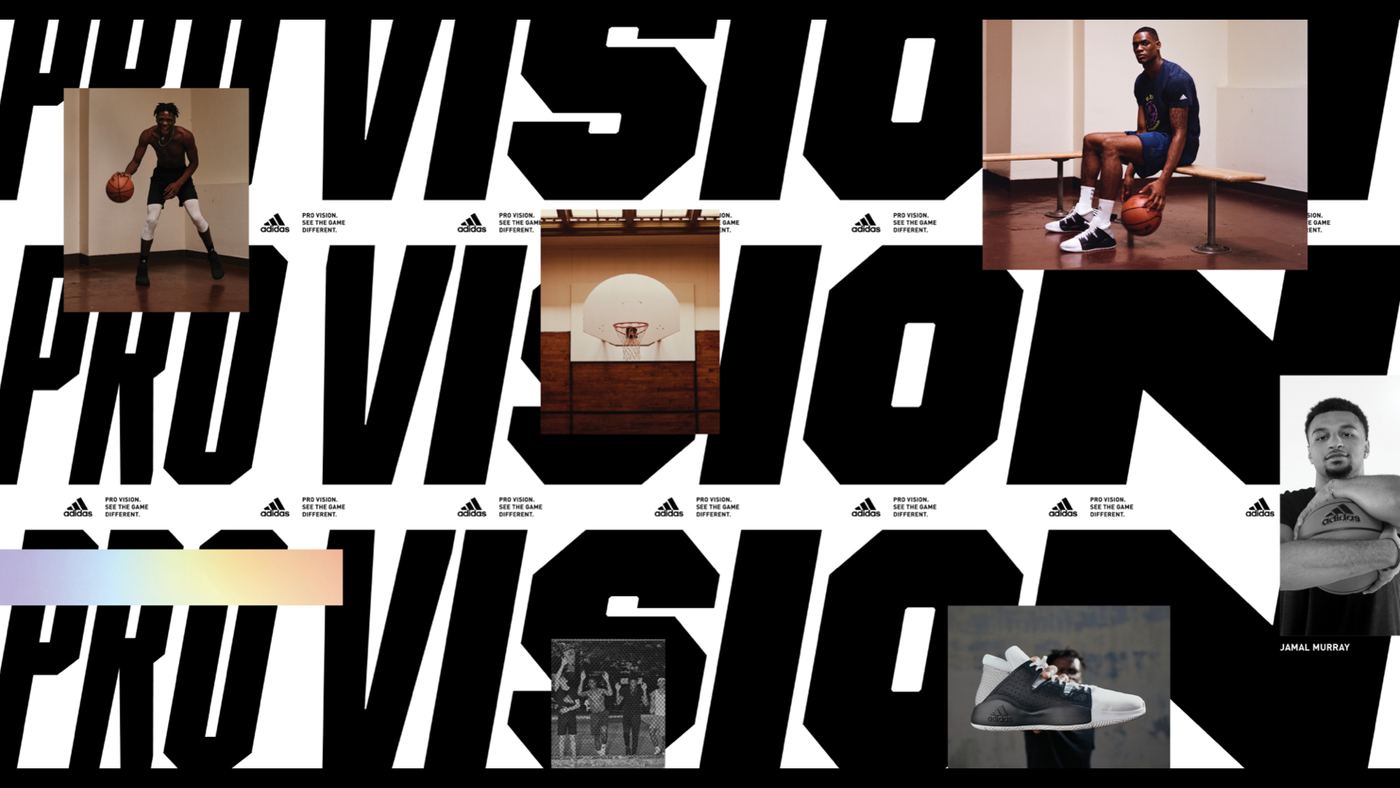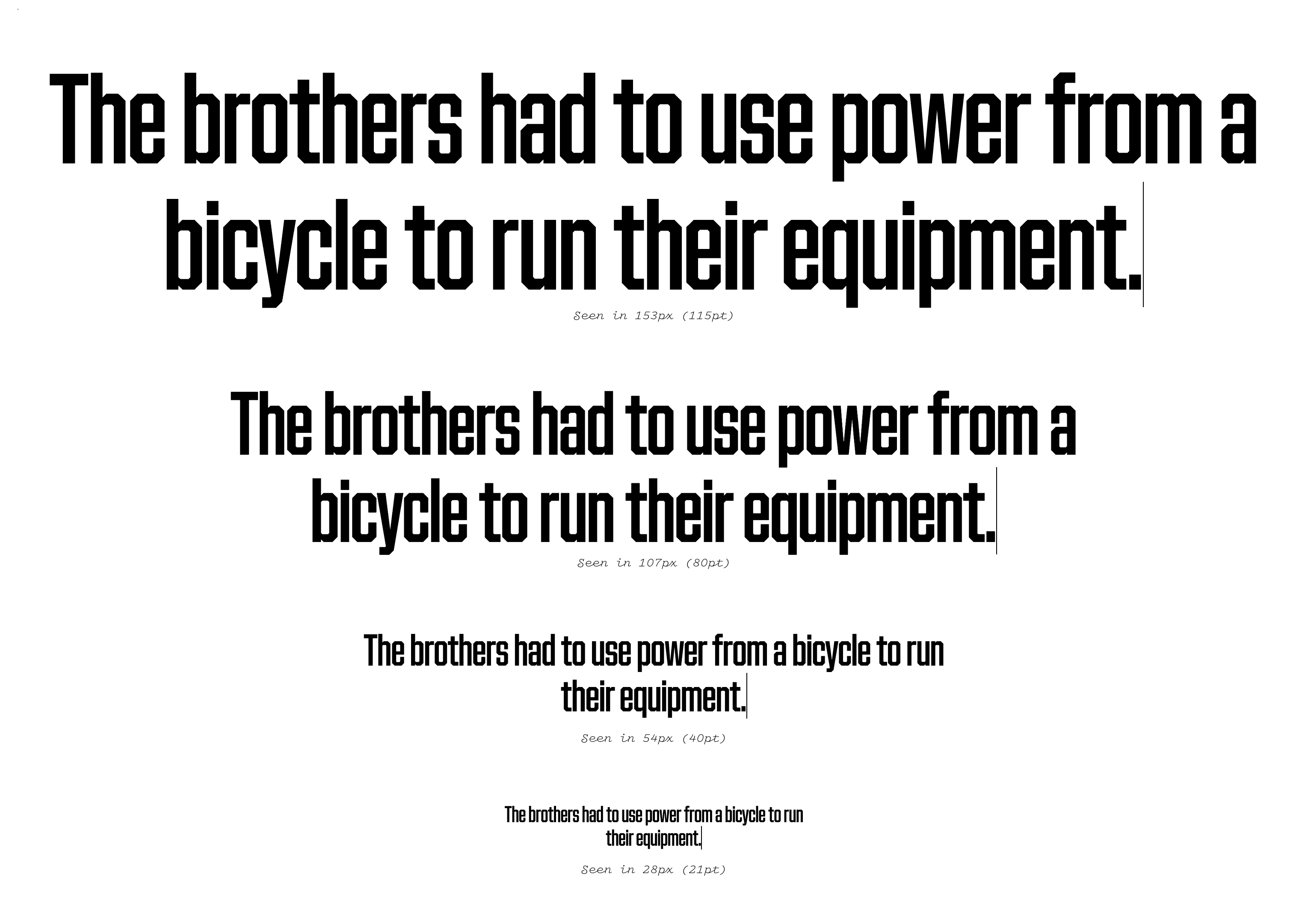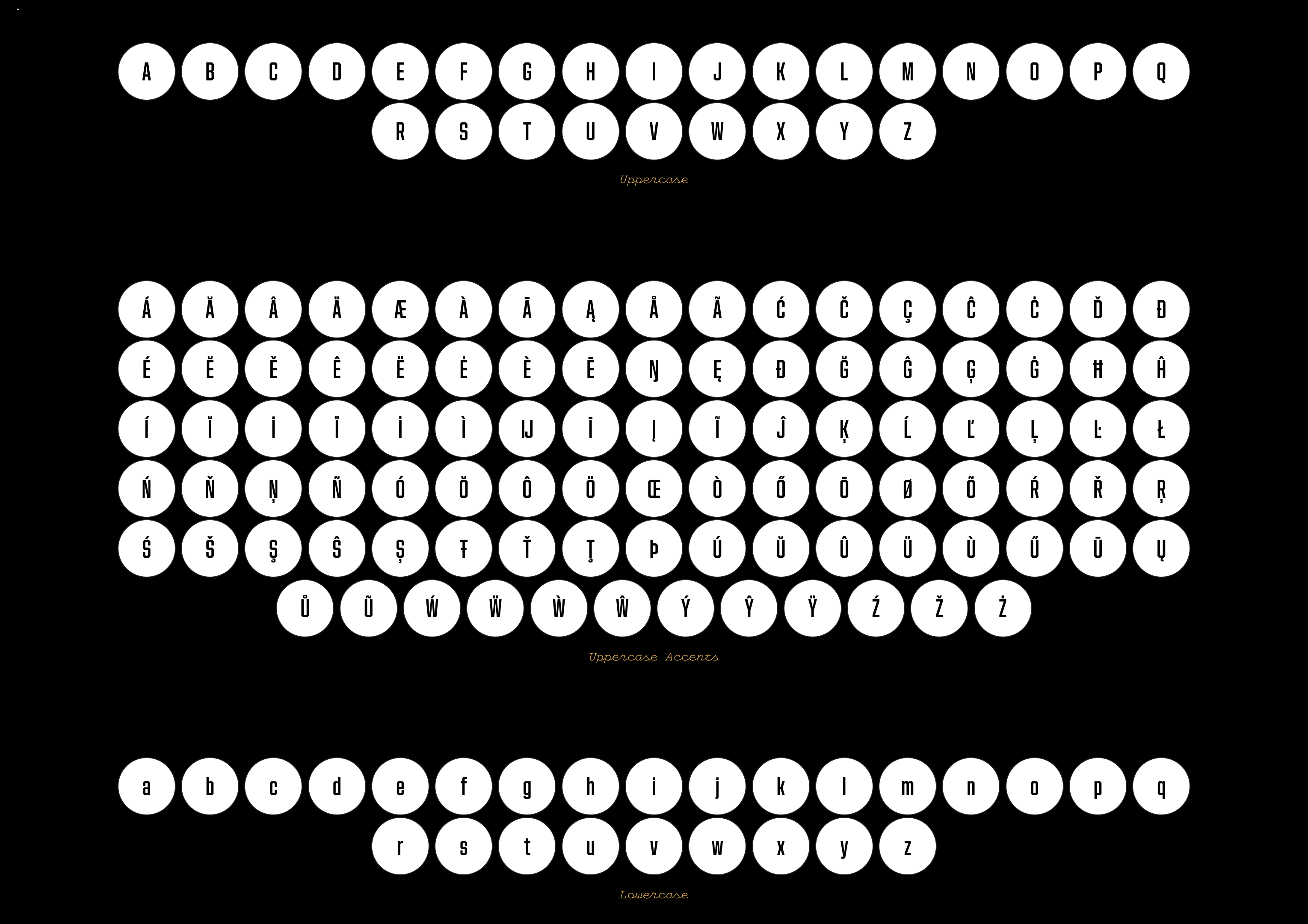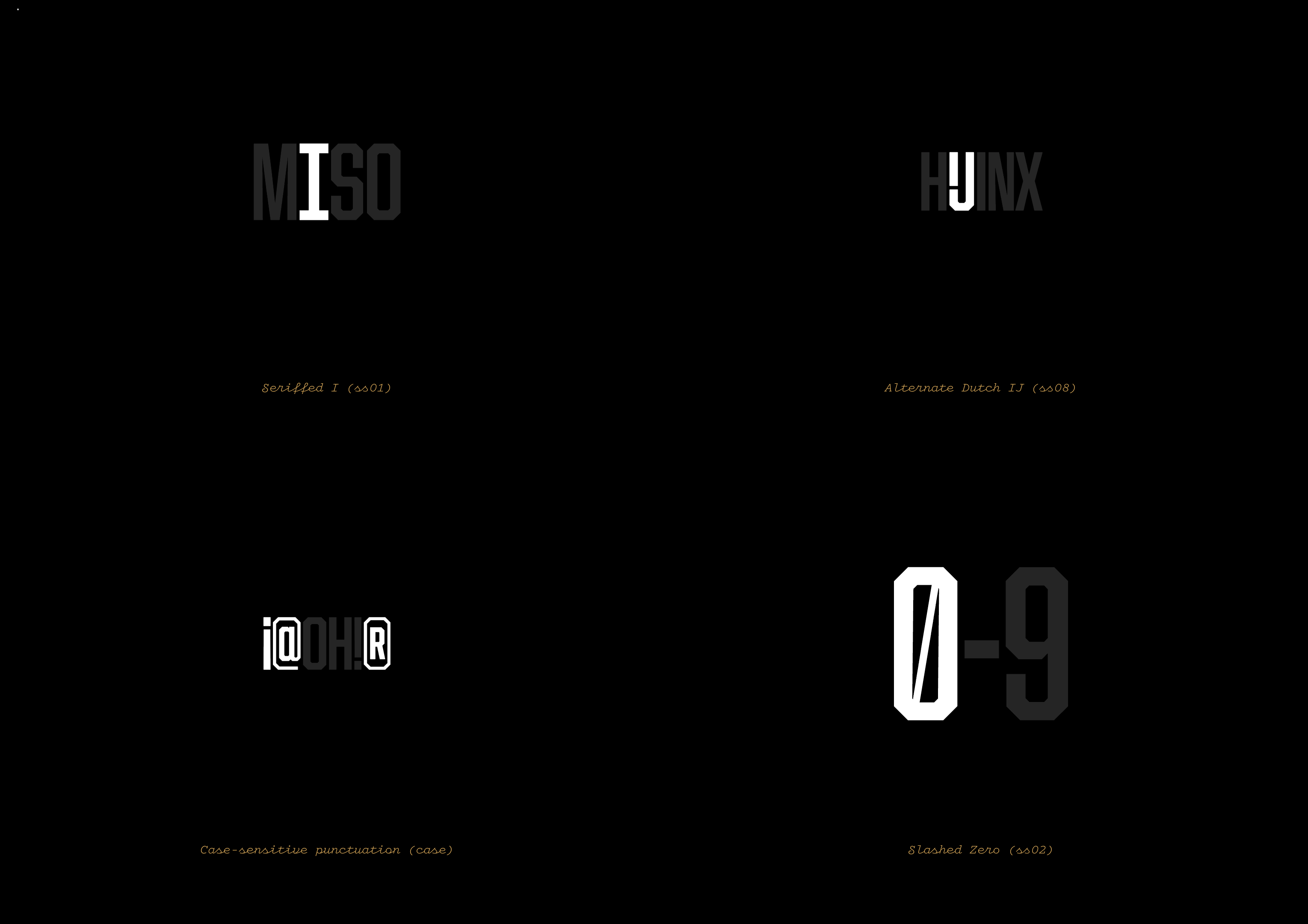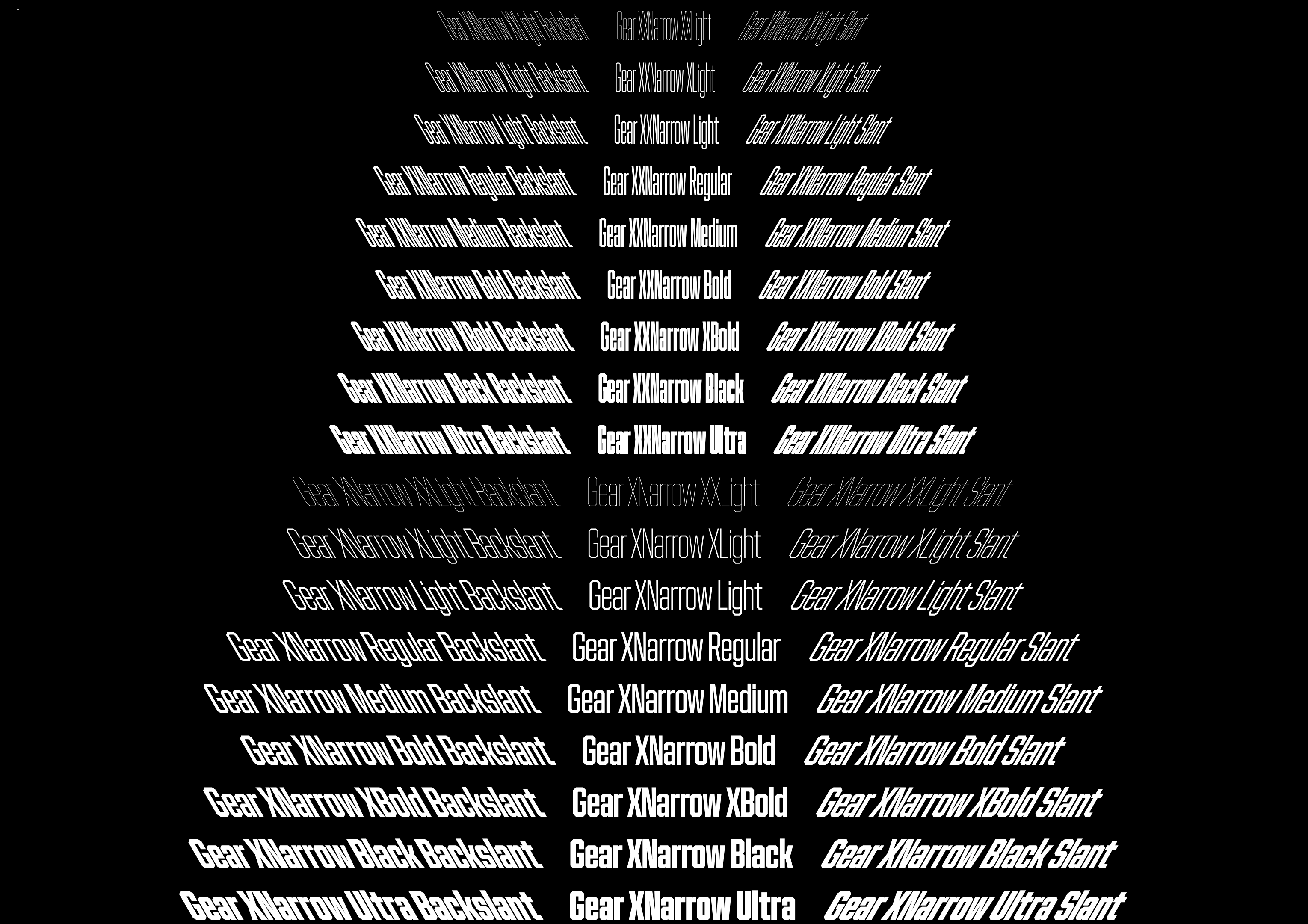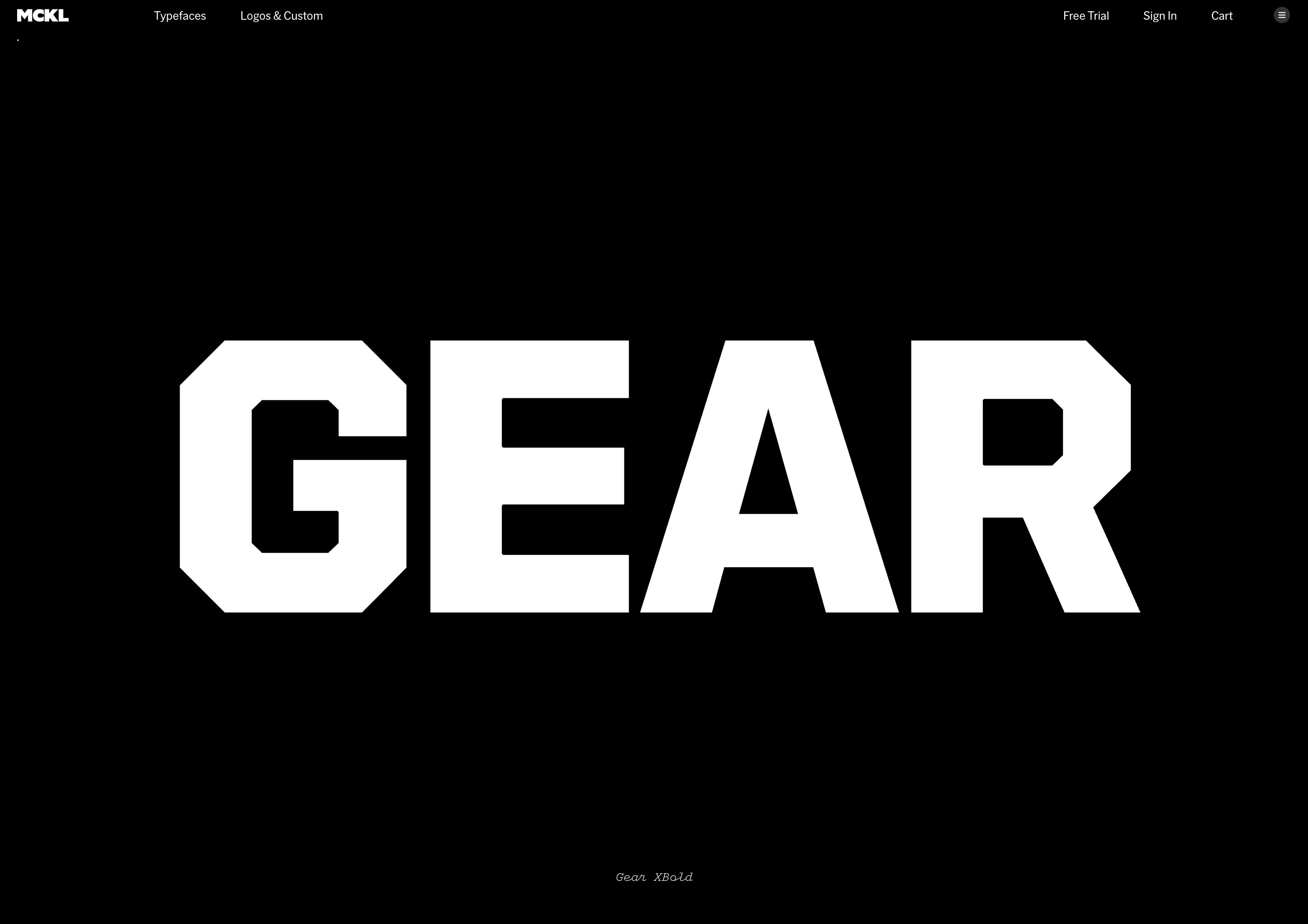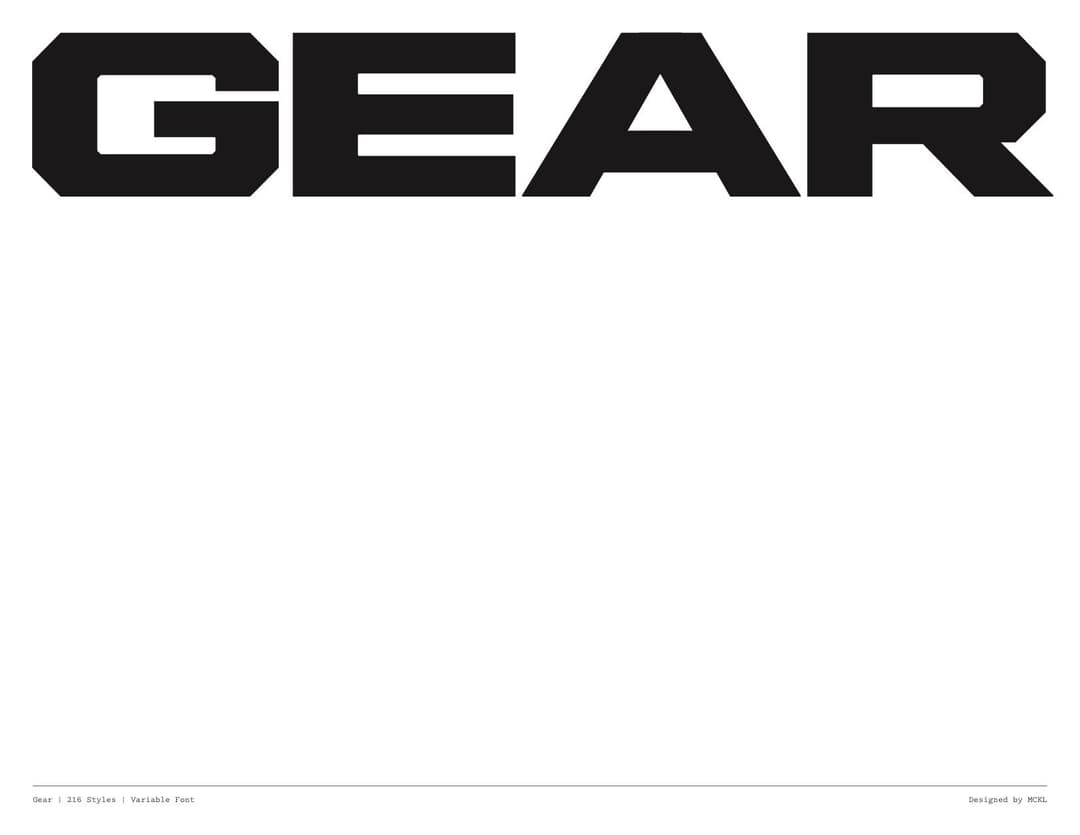
Gear
• 216 styles 8 widths, 9 weights each Backslant, Roman, and Slant
• Designed by Jeremy Mickel Published in 2025
• With assistance by Graham Bradley, Sabina Chipară, and Douglas Hayes
Gear is a bold, high-performance typeface built to stretch, flex, and power through any layout. With sharp octagonal forms, aggressive slants and backslants, and an extreme range of widths and weights, from ultra-narrow to ultra-wide, hairline thin to ultra black, Gear delivers impact with precision and style.
Gear in use for Adidas
Gear in use for Adidas Pro Vision
Originally commissioned by Adidas as an all-caps display face, Gear was designed to push the boundaries of expressive typography. In 2018, it became one of the first variable fonts adopted at an enterprise level by a global brand.
Since then, Gear has evolved into a complete system. We’ve added a full lowercase character set, refined the drawing and proportions, and expanded the range to include slanted and backslanted styles, dramatically increasing its versatility. The collection now spans 8 widths and 9 weights in each of the three angles: backslanted, upright, and slanted.
Also available as a variable font, Gear enables smooth interpolation across all axes, making it a powerful, adaptive tool for expressive, space-filling typography.
Open Circular Numeralsss09
Filled Circular Numeralsss10
Small Numerals
Schoolbook ass01
Schoolbook yss02
Seriffed Iss03
Alternate Dutch IJss08
Slashed Zerozero
Seriffed 1ss04